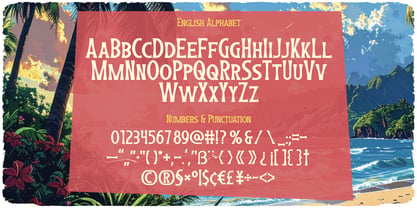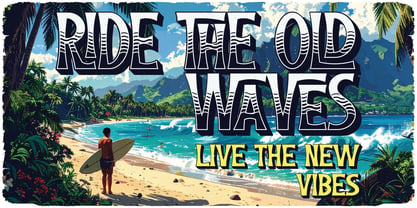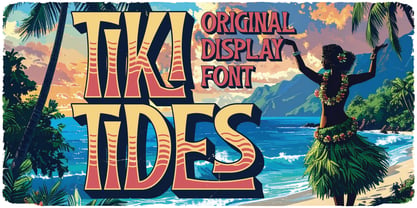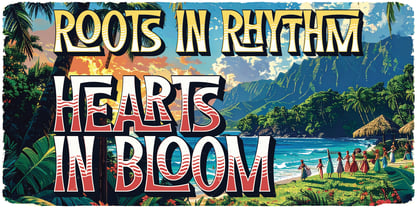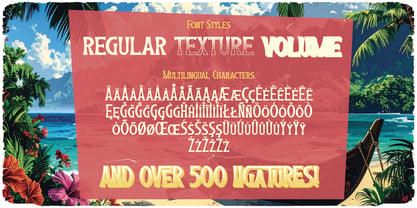
Tiki Tides
by Vozzy
The Tiki Tides Font Family was designed by Oleg Voznyy and published by Vozzy. Tiki Tides contains 4 styles and family package options. More about this family
Introducing the captivating font family "Tiki Tides," designed to make a statement in headlines and accent inscriptions. This unique typeface is perfect for attracting attention and enhancing your creative projects. It features a rich set of additional characters, punctuation marks, and multilingual characters, along with an extensive collection of standard ligatures—ensure your software supports these OpenType features for optimal use. "Tiki Tides" will elevate your designs, making them truly stand out! Ideal for branding, web design, and editorial projects, this font combines style and functionality seamlessly.